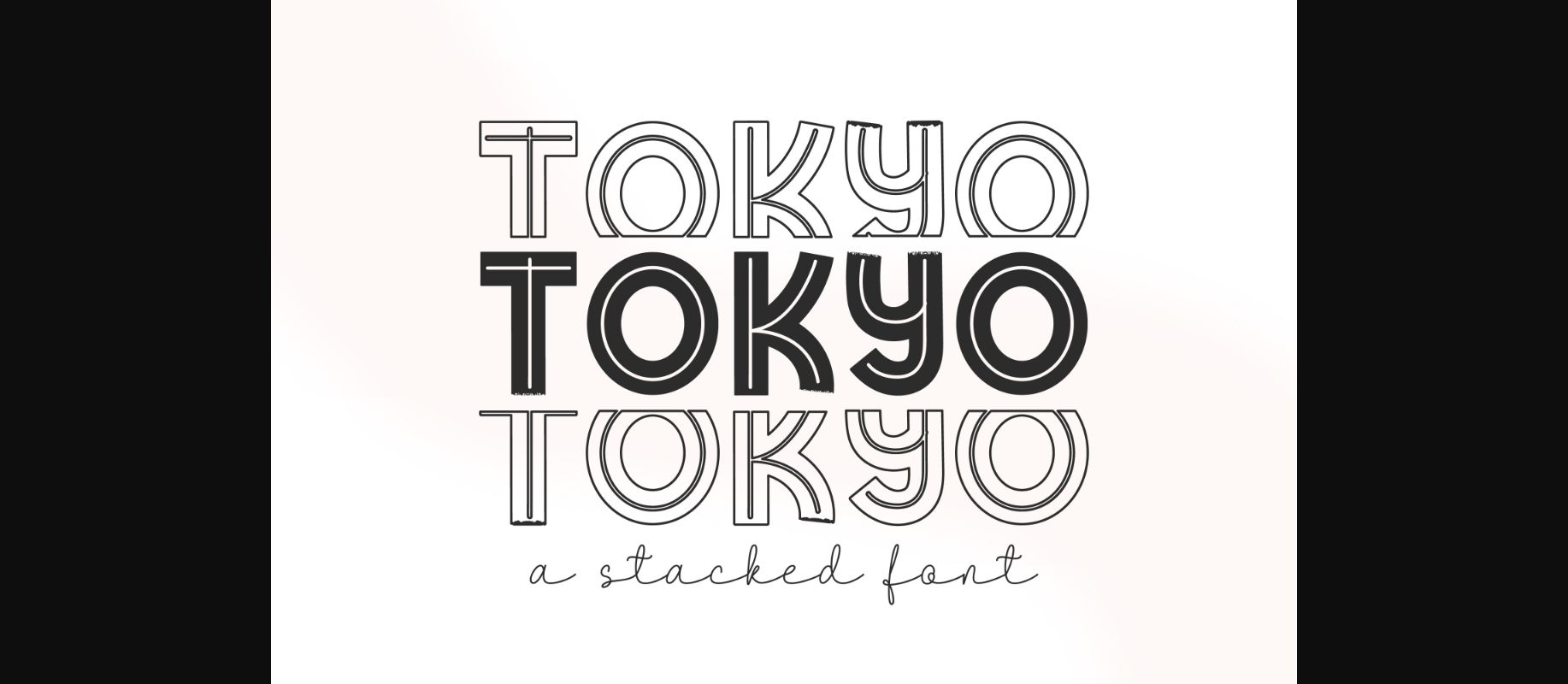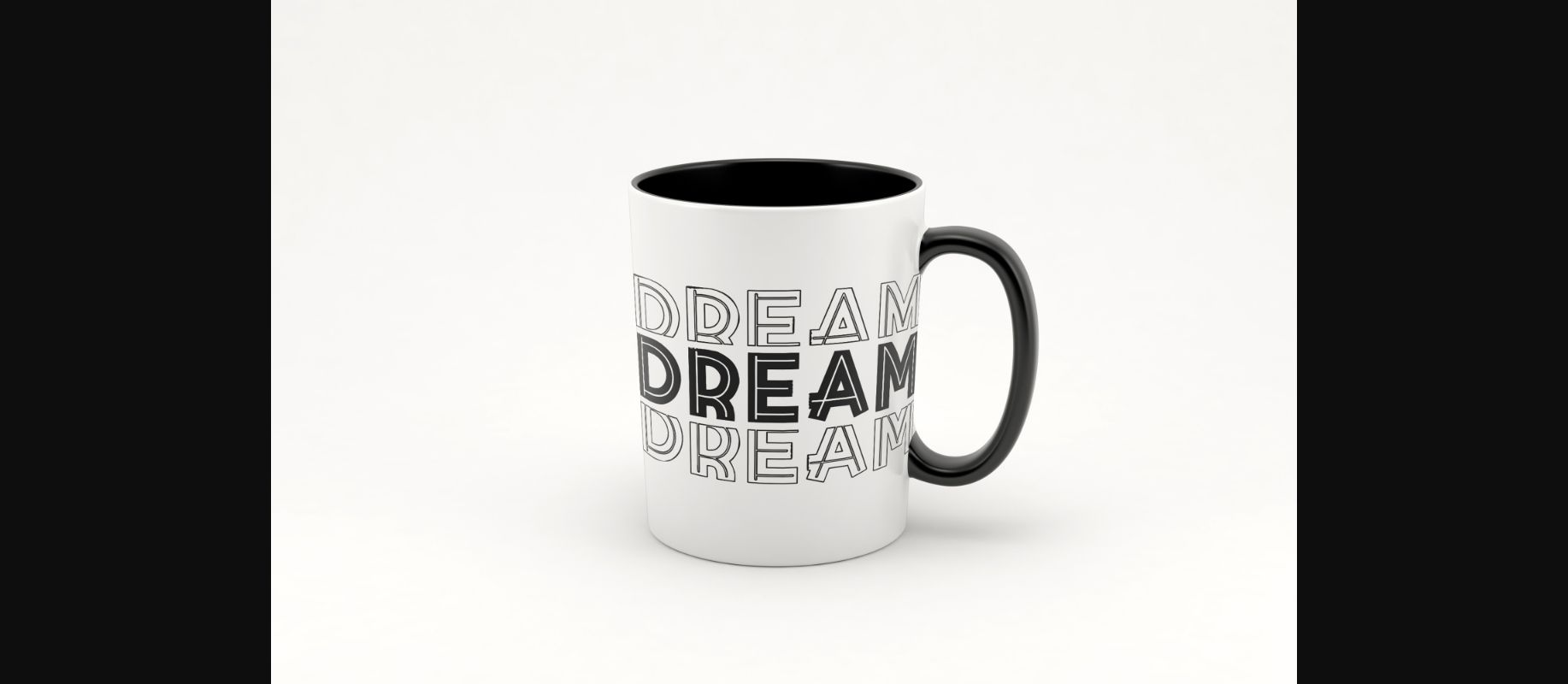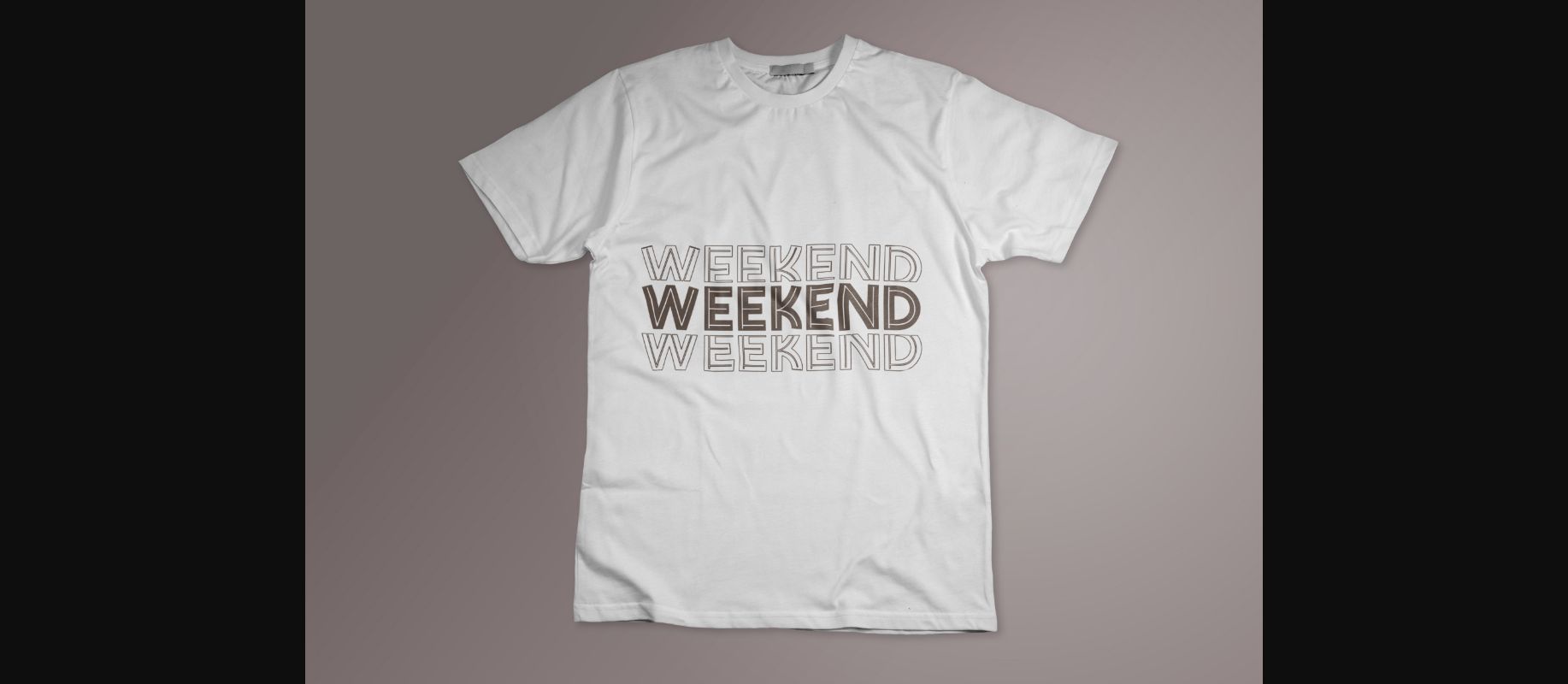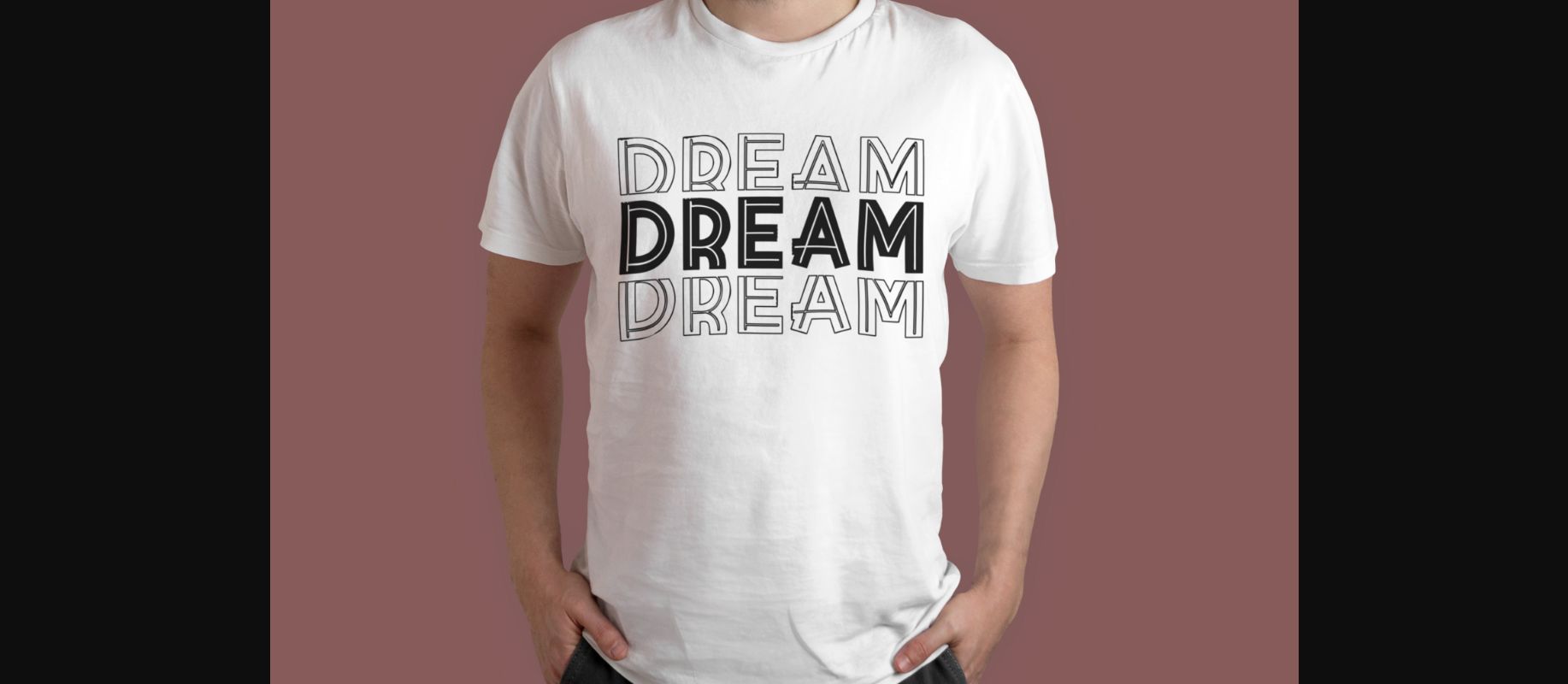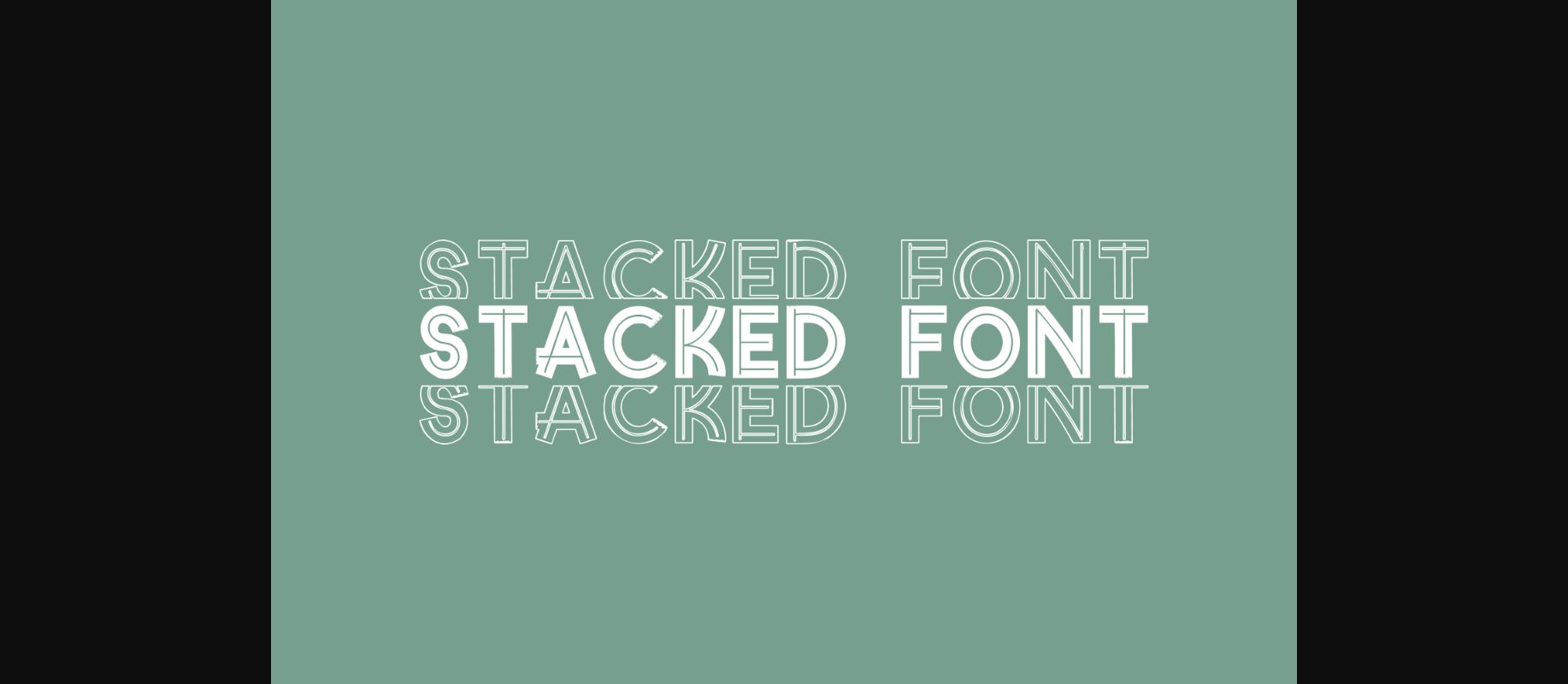
Tokyo Font
About Tokyo Font
Tokyo is an eye-catching stacked font with clean lines and a minimalist design, making it the perfect choice for headlines and short titles. Its bold style impacts your design, while its glowing letter maintains a professional and sophisticated look.